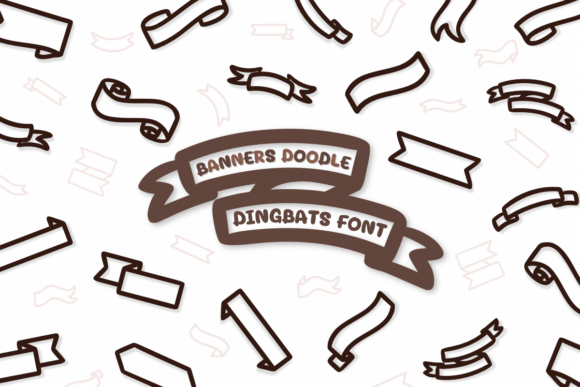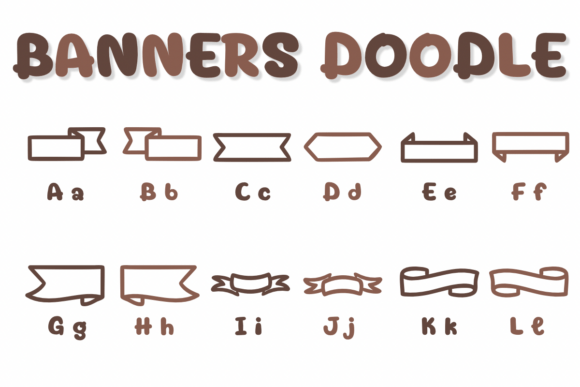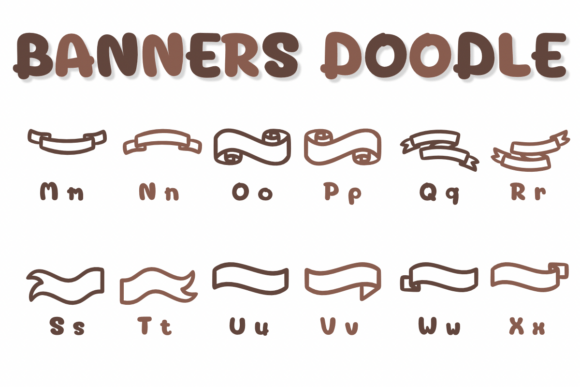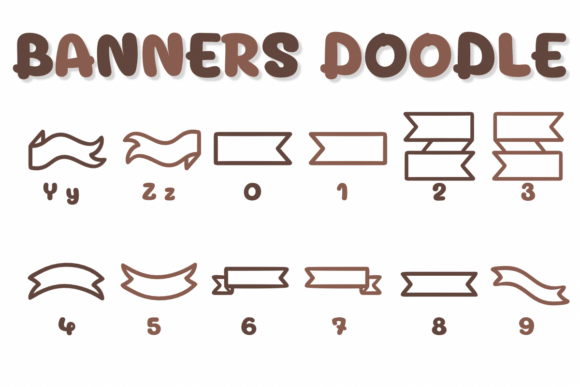
Banners Doodle Font
About the Banners Doodle Font
Elevate your designs with Banners Doodle Font, a font that combines sophistication with readability. Banners Doodle is a dingbats font with a sketched style. This font can enhance your creative projects such as wedding invitations, DIY, crafts, decorations, logos, and many other creative ideas.
Banners Doodle Font Usage Examples
Banners Doodle Font Example